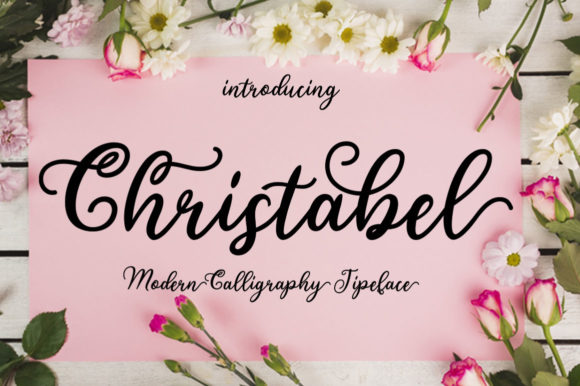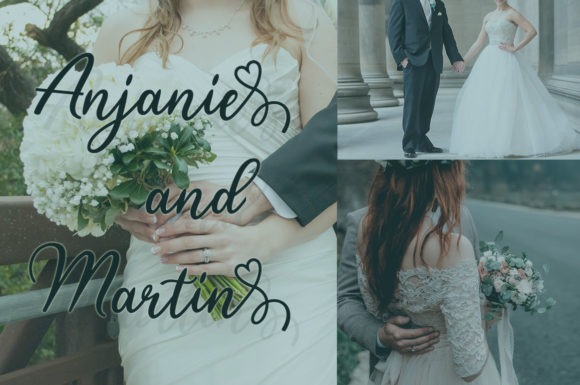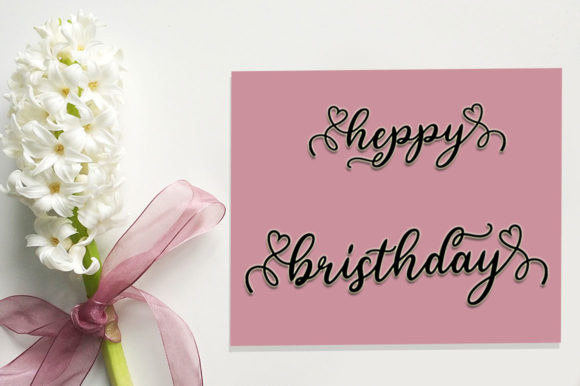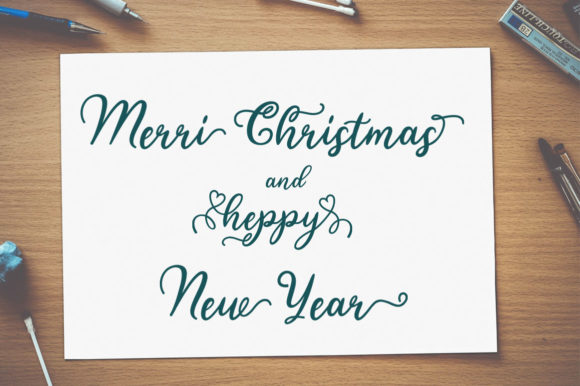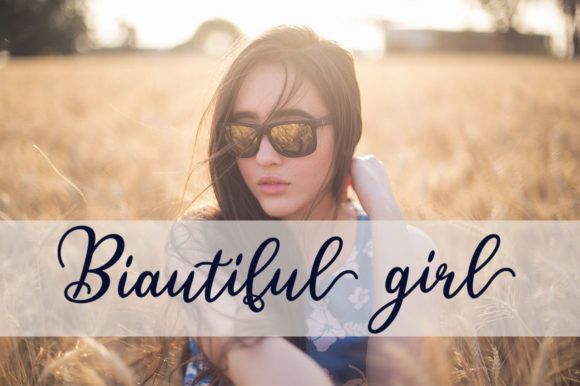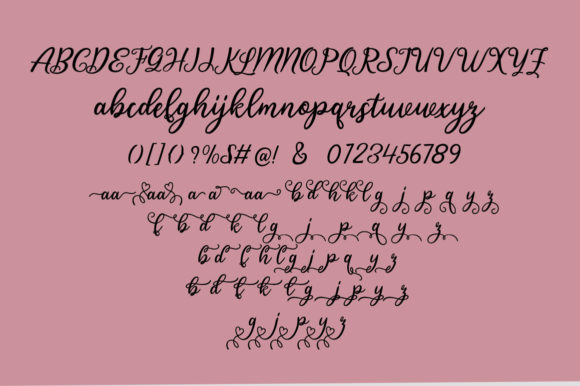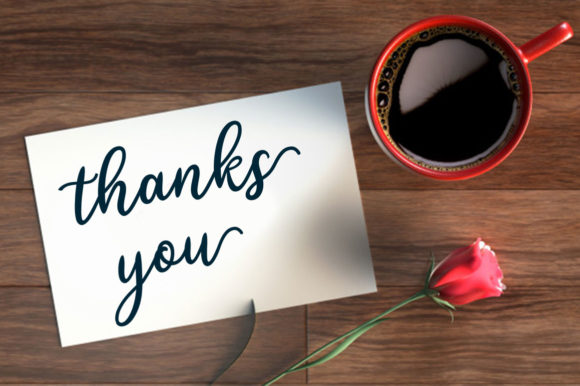
Christabel Font
About Christabel Font
The Christabel is a fresh and modern calligraphy script. It has decorative characters and a dancing lineage which will look perfect on invitations, greeting cards, branding materials, business cards, quotes, posters and much more!